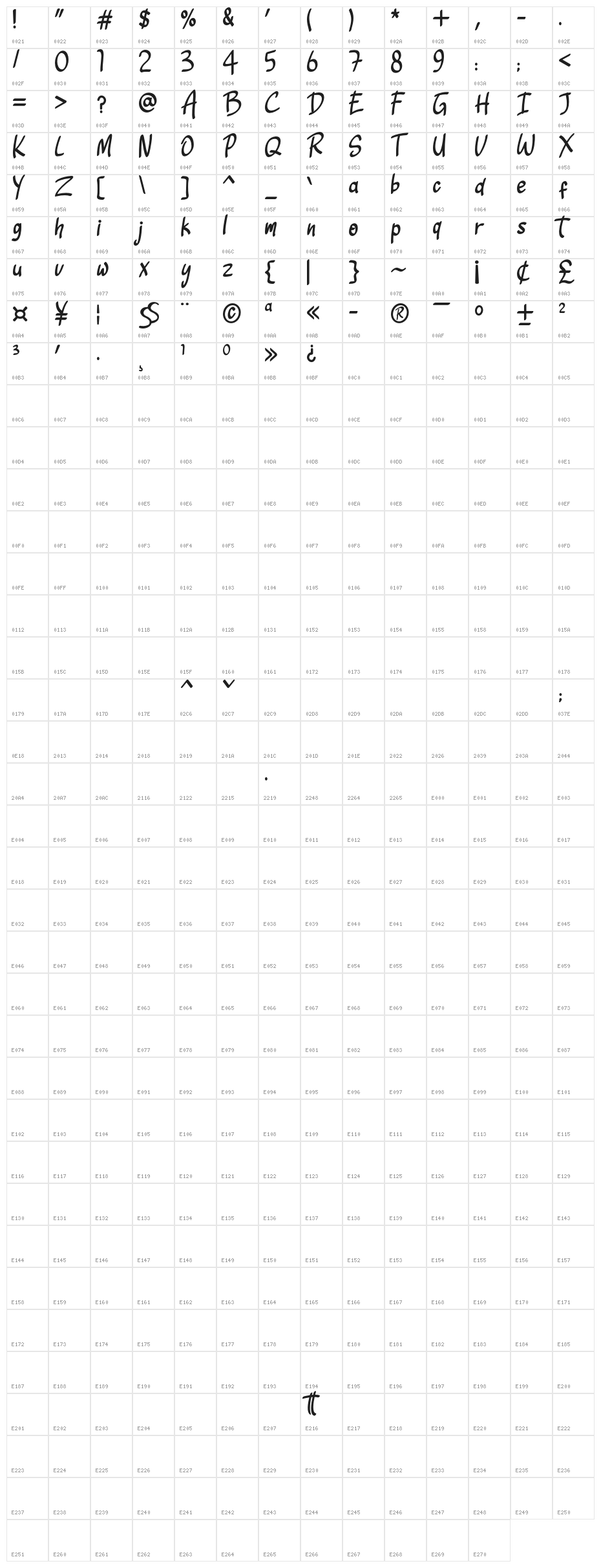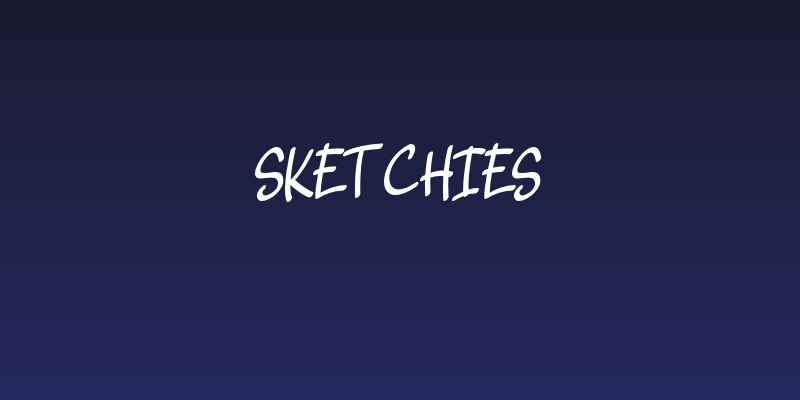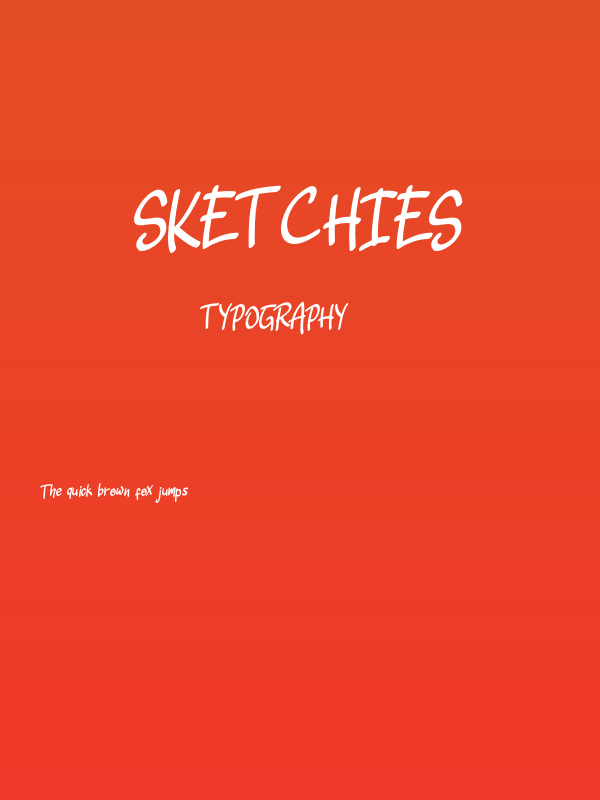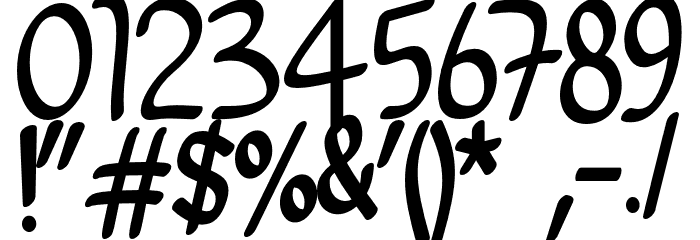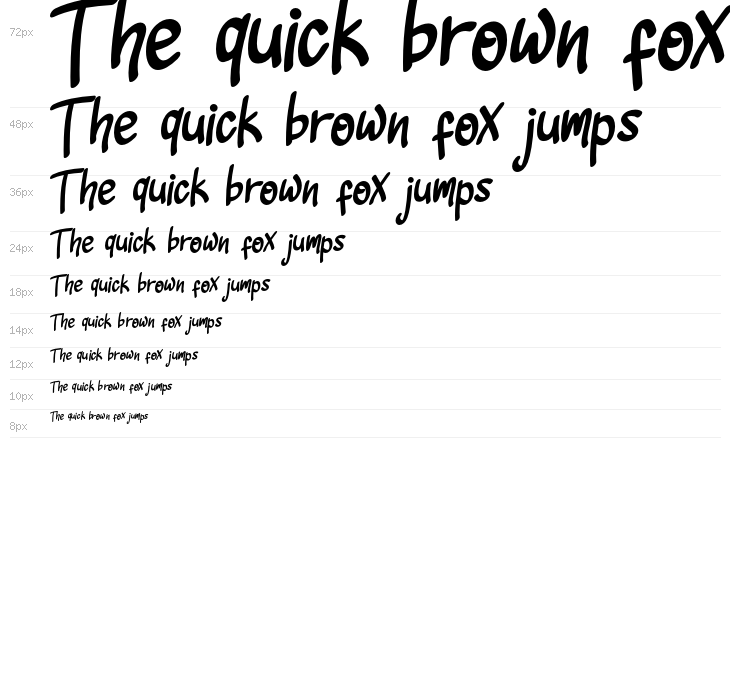
Sketchies Font
Sketchies Description
This font exudes a playful and informal vibe, characterized by its hand-drawn, sketch-like appearance. The letters are slightly slanted, giving a dynamic and energetic feel. The strokes are uneven, mimicking the natural flow of handwriting, which adds to its casual and approachable style. The uppercase and lowercase letters maintain a consistent style, with rounded edges and varying stroke thickness that enhance its whimsical nature. The numerals and special characters follow the same playful aesthetic, making this font suitable for creative and informal projects.
| Proposed Projects | Ideal for children's books, comic strips, casual branding, and creative posters. |